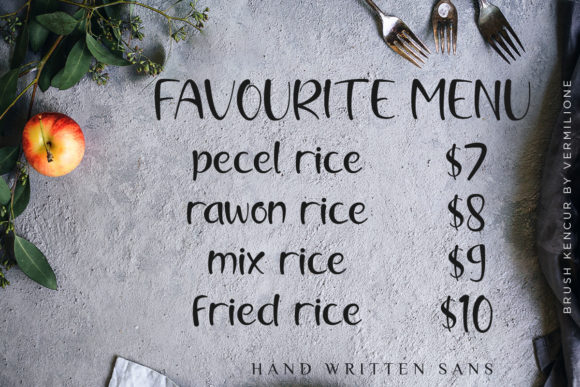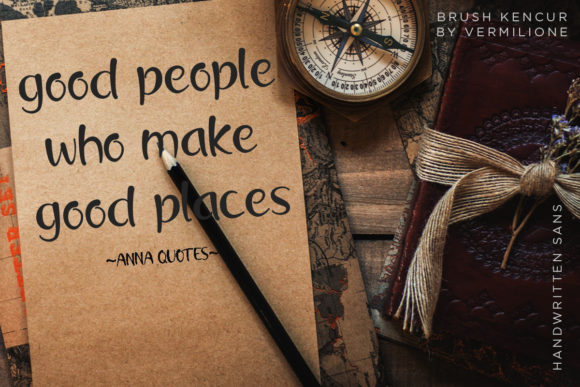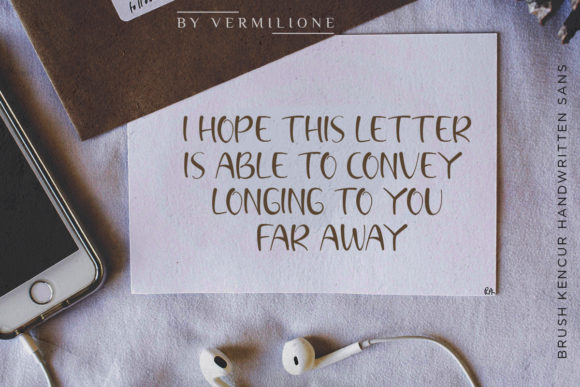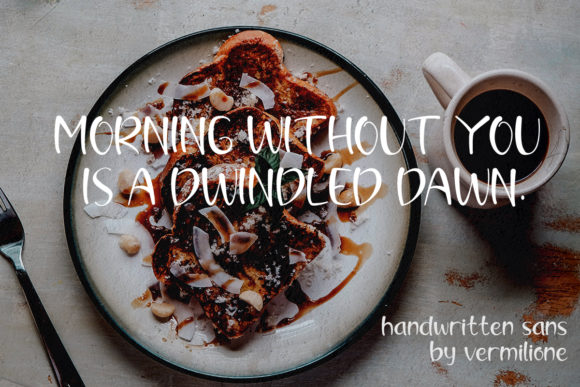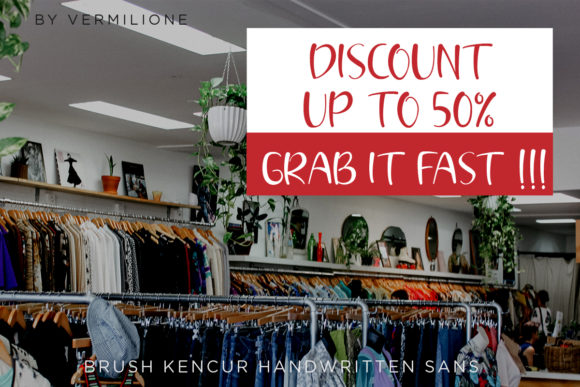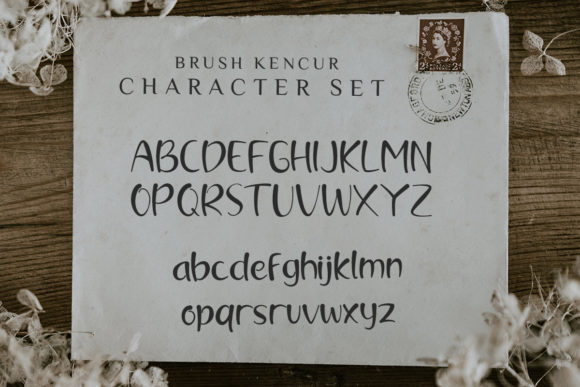
Introducing Brush Kencur Font: The Ultimate Doodle Typeface for Creative Projects
Are you tired of using the same old fonts for your designs? Look no further! The Brush Kencur Font is here to shake things up with its unique doodle typeface and fun, quirky feel. This versatile font is perfect for a wide range of creative projects, from logos and t-shirt designs to phone cases and more. In this article, we’ll dive into the world of Brush Kencur Font and explore its features, benefits, and uses.
What is Brush Kencur Font?
The Brush Kencur Font is a one-of-a-kind doodle typeface that adds a touch of playfulness to any design. Its unique, hand-drawn style gives it a distinctive look that’s sure to grab attention. Whether you’re a designer, crafter, or DIY enthusiast, this font is perfect for anyone looking to add some personality to their work.
Key Features of Brush Kencur Font
- Unique Doodle Style: The Brush Kencur Font boasts a distinctive doodle style that’s unlike any other font out there. Its fun and quirky feel makes it perfect for designs that require a playful touch.
- Versatile: This font is incredibly versatile and can be used for a wide range of projects, from logos and branding to t-shirt designs, phone cases, and more.
- High-Quality: This font is made up of high-quality, hand-drawn characters that ensure a professional finish.
Benefits of Using Brush Kencur Font
So, why choose the Brush Kencur Font for your next project? Here are just a few benefits of using this amazing font:
- Adds Personality to Your Designs: The Brush Kencur Font adds a touch of personality to any design, making it perfect for brands and businesses looking to stand out.
- Perfect for Creative Projects: This font is ideal for creative projects, such as t-shirt designs, phone cases, and more.
- Increases Engagement: The fun and quirky feel of the Brush Kencur Font is sure to grab attention and increase engagement.
Uses for Brush Kencur Font
The Brush Kencur Font is incredibly versatile and can be used for a wide range of projects, including:
- Logos and Branding: Use the Brush Kencur Font to create a unique and memorable logo for your business.
- T-Shirt Designs: Add a playful touch to your t-shirt designs with this fun and quirky font.
- Phone Cases: Create eye-catching phone cases with the Brush Kencur Font.
- Stationery and Invitations: Use this font to add a personal touch to your stationery and invitations.
Tips for Using Brush Kencur Font
Here are a few tips for getting the most out of the Brush Kencur Font:
- Experiment with Colors: Try out different colors to see what works best with the Brush Kencur Font.
- Play with Typography: Experiment with different typography techniques, such as bolding and italicizing, to add emphasis to your text.
- Keep it Simple: Don’t be afraid to keep things simple and use the Brush Kencur Font on its own.
The Brush Kencur Font is a unique and versatile doodle typeface that’s perfect for designers, crafters, and DIY enthusiasts. With its fun and quirky feel, this font is sure to add a touch of personality to any design. Whether you’re creating logos, t-shirt designs, phone cases, or more, the Brush Kencur Font is the perfect choice. So why wait? Get creative and start using the Brush Kencur Font today!